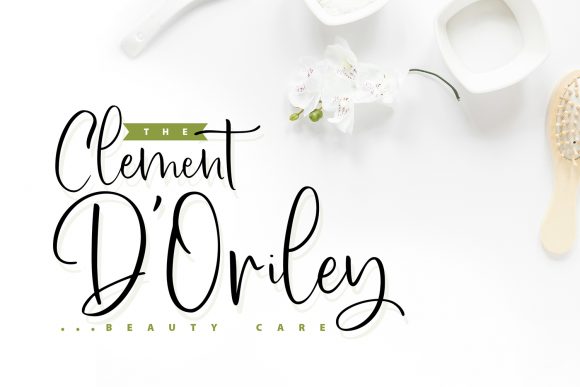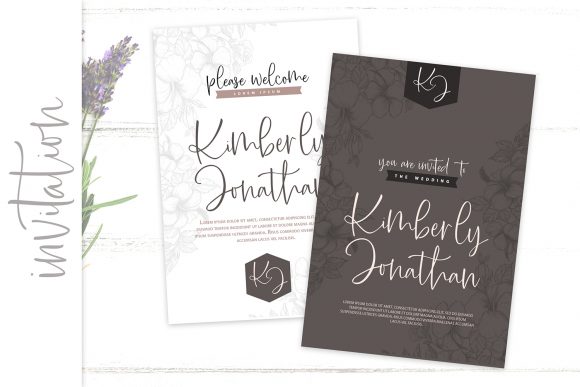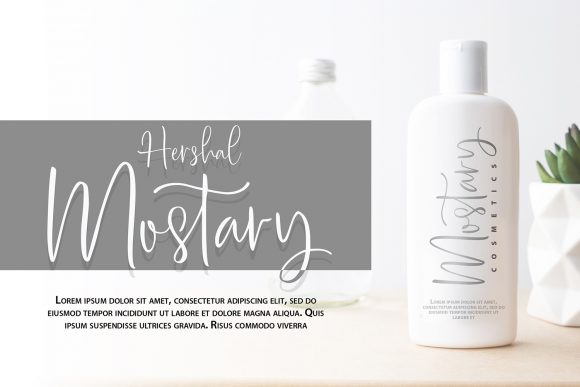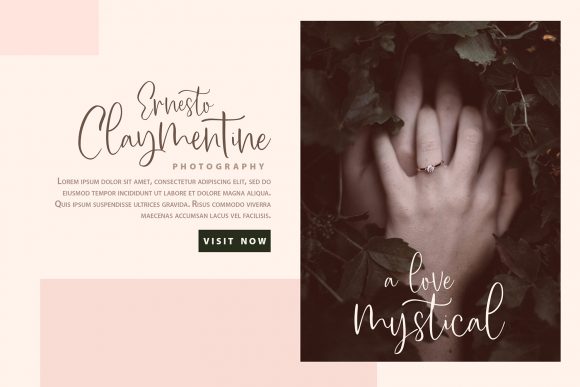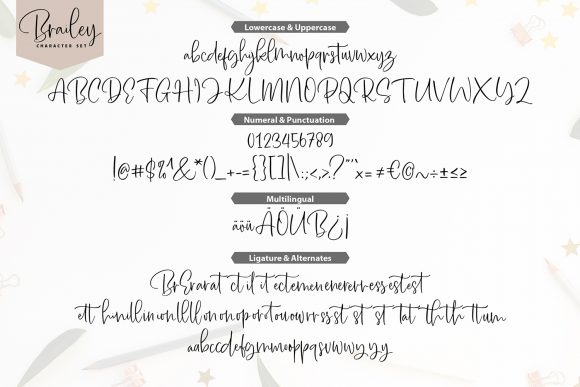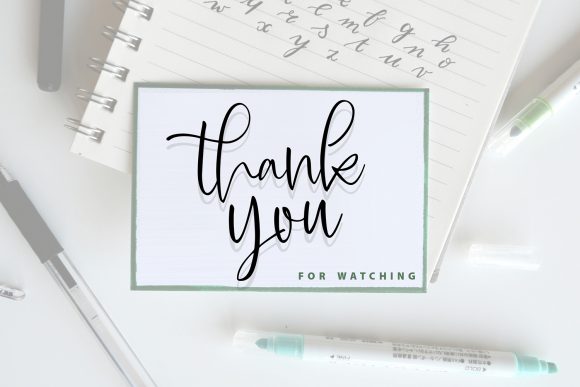
The Brailey Font: A Designer’s New Best Friend
I’ll never forget the time I was working on a project for a client who wanted a elegant, yet modern font to represent their brand. I had spent hours scouring the internet for the perfect font, but nothing seemed quite right. That was until I stumbled upon Brailey – an exquisite handwritten font that instantly caught my eye. In this article, I’ll share my experience with Brailey, its features, and how to make the most of it in your designs.
First Impressions: A Love at First Sight
Brailey is a beautifully crafted handwritten font that exudes class and sophistication. Its calligraphic influences are evident, yet it feels contemporary and fresh. The font is designed to be versatile, making it perfect for a wide range of projects, from branding and advertising to packaging and stationery.
• ✨ Elegant and sophisticated design
• 💫 Perfect for projects that require a touch of luxury and class
• 🎨 Highly versatile and adaptable to different design styles
While Brailey is an amazing font, there are a few things to keep in mind:
• ⚠️ Some users may find the font a bit too ornate for certain projects
• 🤔 Limited availability of certain characters or diacritics
The Story Behind Brailey
Brailey was designed with the intention of creating a font that’s both elegant and modern. The designer aimed to create a font that’s perfect for projects that require a touch of luxury and class. With its beautiful calligraphic influences and contemporary feel, Brailey is sure to become a favorite among designers and crafters alike.
A: PUA (Private Use Area) encoding is a way of encoding fonts that allows for easy access to glyphs and swashes. This means that users can easily access and use the font’s advanced features, such as ligatures and stylistic alternates.
Q: Is Brailey suitable for body text?
A: While Brailey is a beautiful font, it’s best suited for headlines and titles. Its elegant and sophisticated design may not be suitable for body text, which requires a more straightforward and readable font.